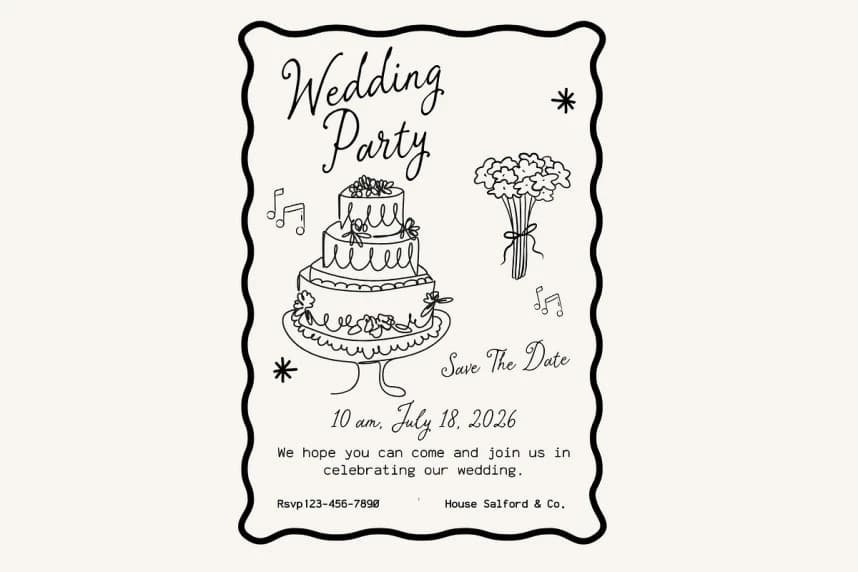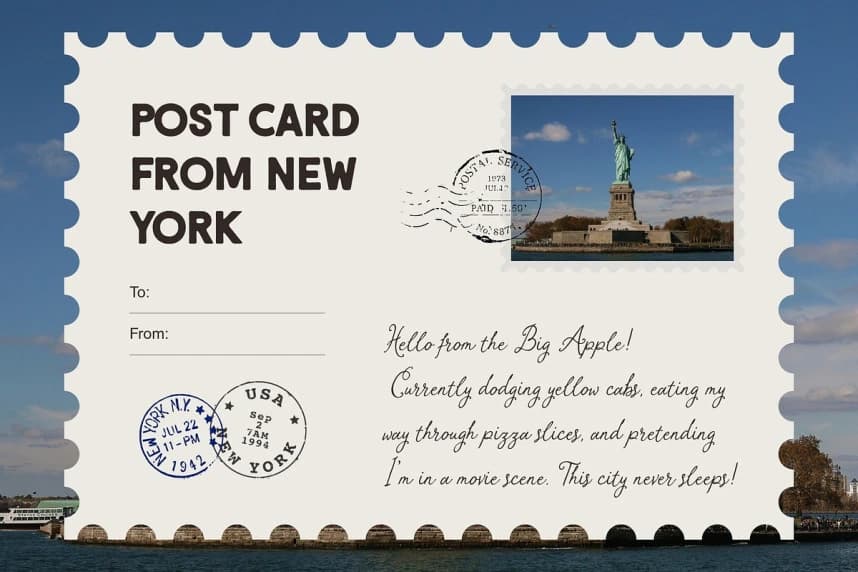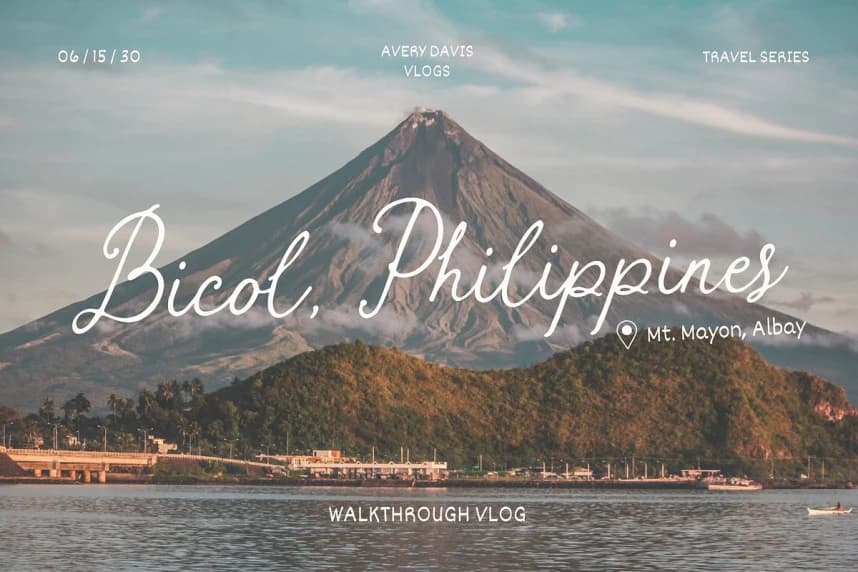
Charite Atelier Font
Charite Atelier Font is a graceful handmade script font that captures the essence of elegance, romance, and timeless beauty. Designed with flowing curves and delicate strokes, this font brings a natural handwritten feel that is both sophisticated and personal.